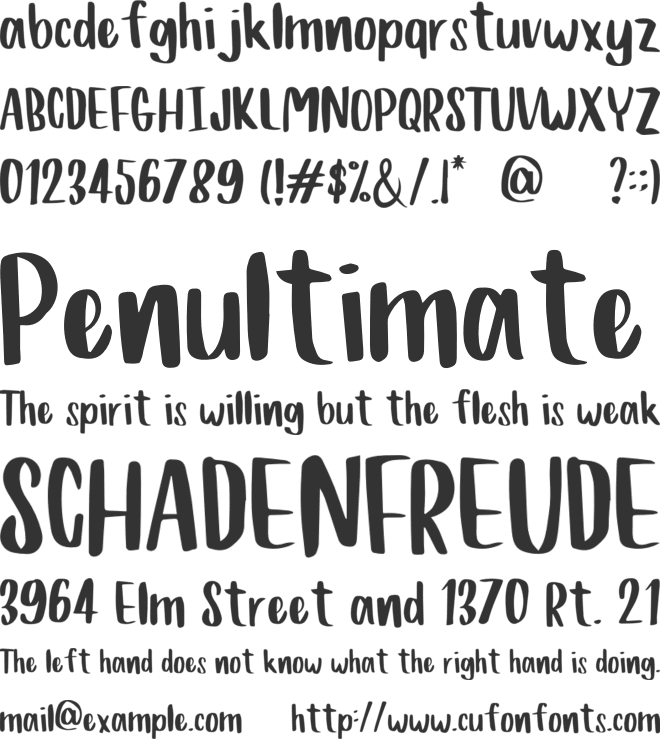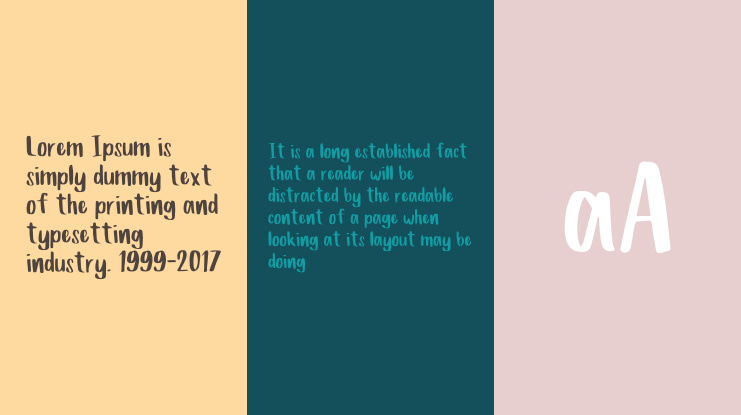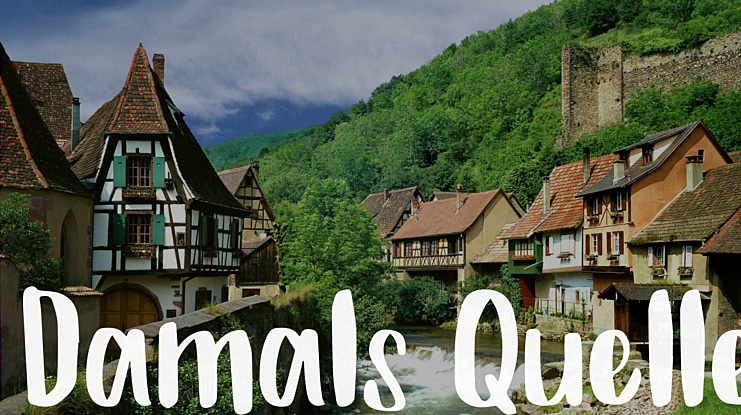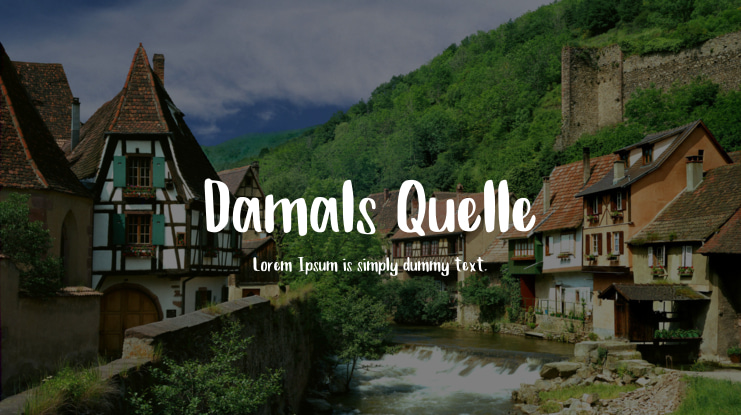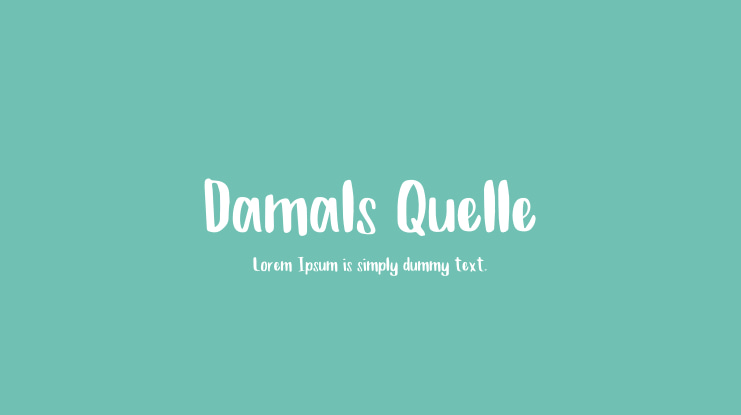
Damals Quelle Font
Deni Pramadita
Damals Quelle is a casual font with natural brush stroke, comes with uppercase, lowercase, numerals, and punctuation. This font will be perfect pick for various designs & artworks like social media post, brand type, posters, merchandise, packaging, headlines, merchandises, t-shirt, and many more..